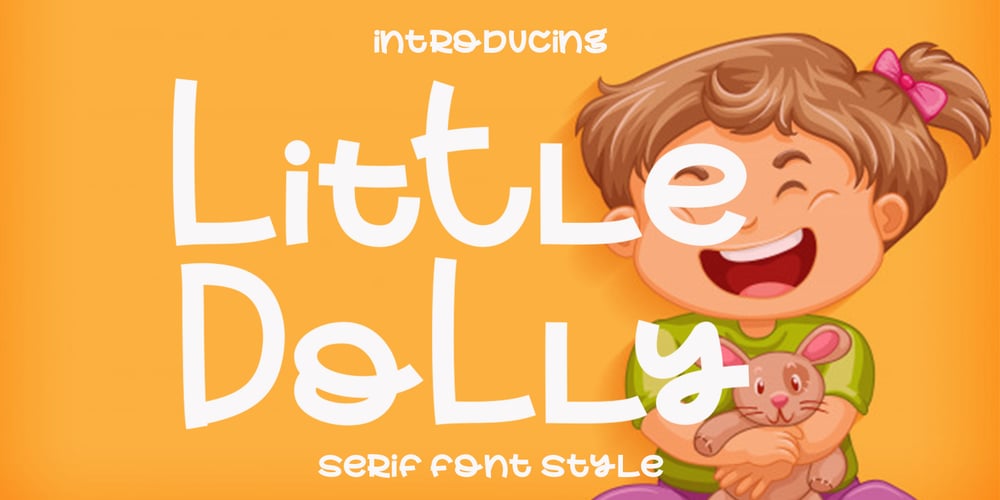
Little Dolly Font Family was designed by Teuku Saifullah and published by Shape Studio. Little Dolly contains 1 styles and family package options. Little Dolly is a fun handwritten font filled with handwritten charm and personality!It is the perfect choice for crafters with lawn mowers, as it is extremely smooth for optimal cutting performance.Little Dolly is a fun font that’s bold and smooth enough to cut with the Cricut & Silhouette crafting machine, for Titles for children’s books, scrapbooks, logos, icons, phrasesor quotes for winter greeting cards (Halloween or New Year holidays),photo overlays, short phrases, children’s books, gift shop tags,presentations on social media Pinterest, Instagram, Facebook, or others.Thank you!